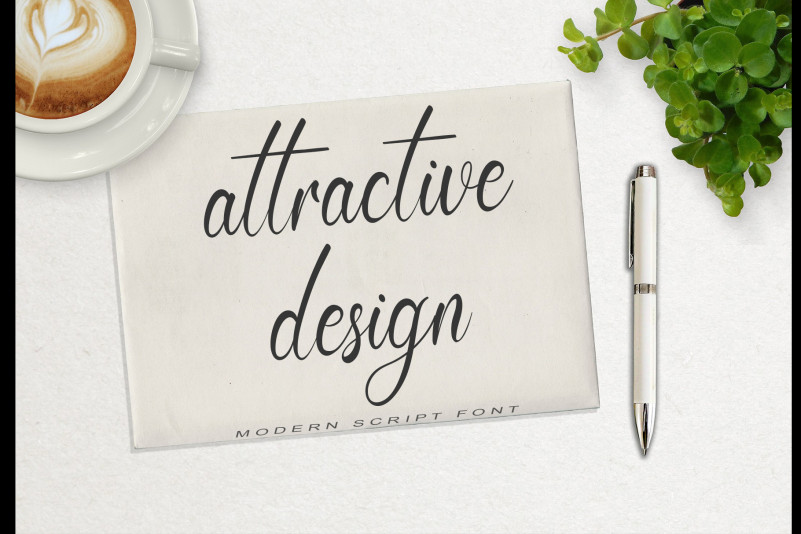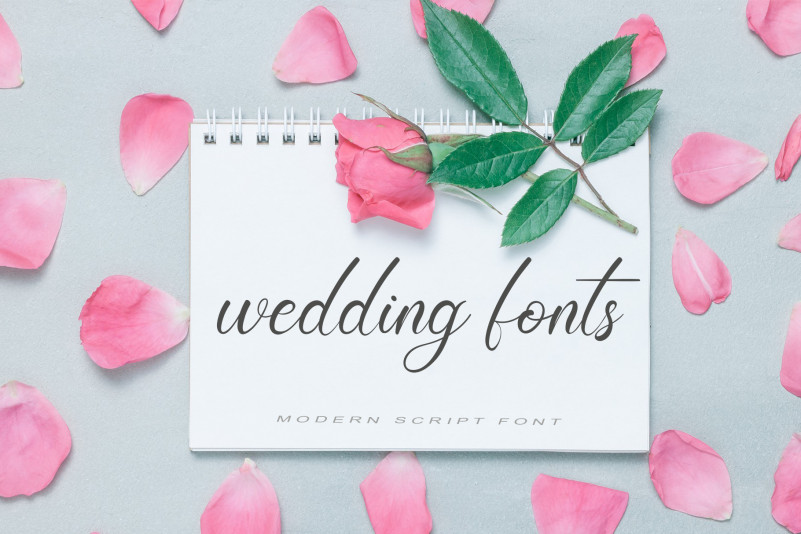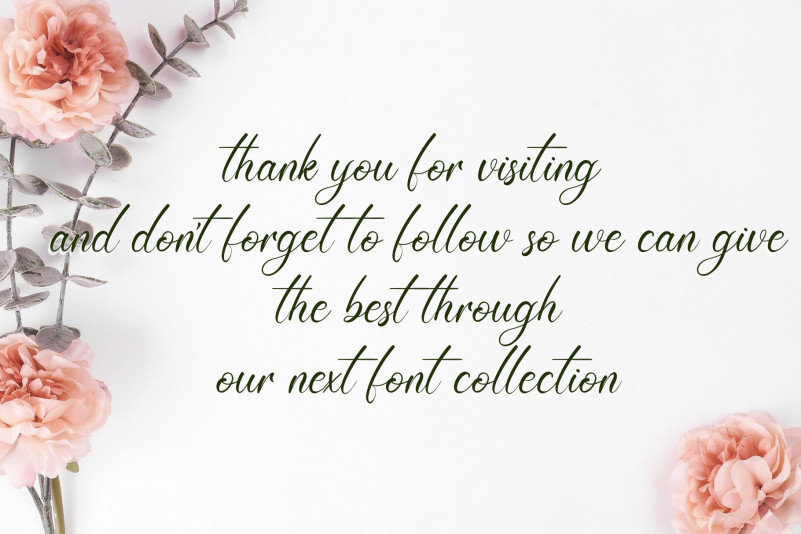
Summer Long Font
Summer Long Script Font
This is a delicate and smooth handwritten font. Its distinct and well balanced letters make this font a masterpiece. Fall in love with its stylish vibe and use it to create spectacular designs!